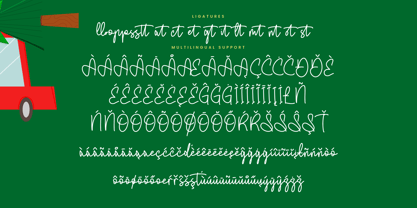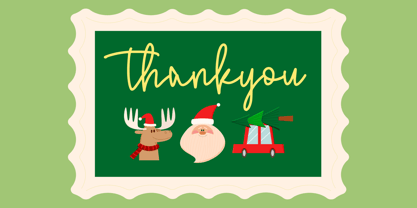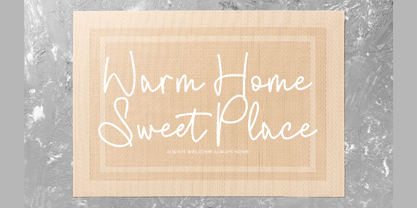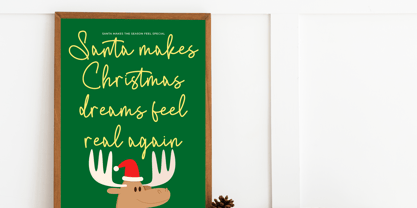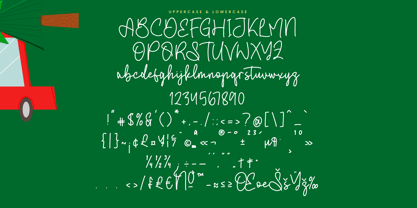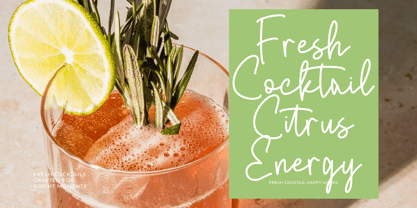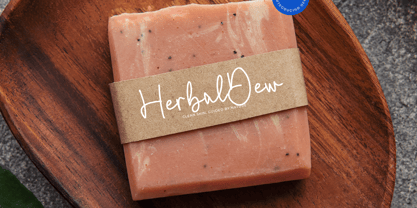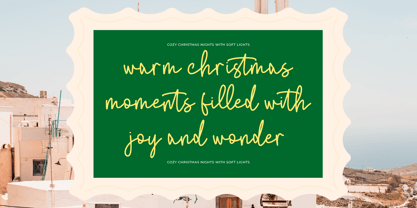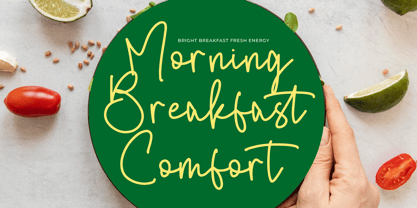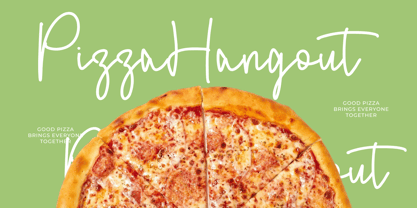
Fluffy Bloom
by Integritype
The Fluffy Bloom Font Family was designed by Dimas Alif Maulana and published by Integritype. Fluffy Bloom contains 2 styles and family package options. More about this family
Fluffy Bloom is a soft and charming monoline handwritten script font that exudes a natural, flowing rhythm. Inspired by light, blooming shapes and gentle handwritten strokes, this font adds a warm, friendly, and elegant personality to any design. With its clean monoline structure and smooth curves, Fluffy Bloom is ideal for beauty branding, logos, wedding invitations, packaging, social media content, quotes, and lifestyle designs. The handwritten style is both natural and polished, ensuring easy readability while maintaining a stylish and modern appearance. Fluffy Bloom shines as a standalone script or when paired with serif and sans-serif fonts, enabling designers to create balanced, attractive, and professional layouts for both digital and print projects. Perfect for logos, beauty and cosmetic branding, wedding designs, feminine packaging, social media graphics, boutique branding, quotes, stationery, and modern handwritten projects.